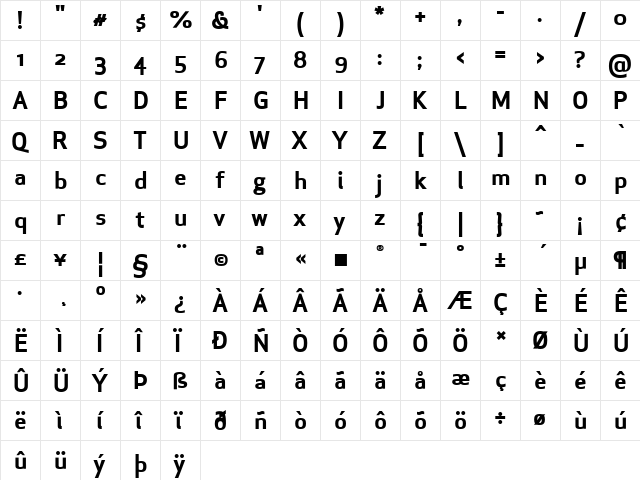
ApexSansBoldST Regular
Design Context for ApexSansBoldST Typeface
ApexSansBoldST is a composed and adaptable typeface that performs quietly and consistently across a wide range of design contexts. The heavy weight commands attention and anchors typographic hierarchies.